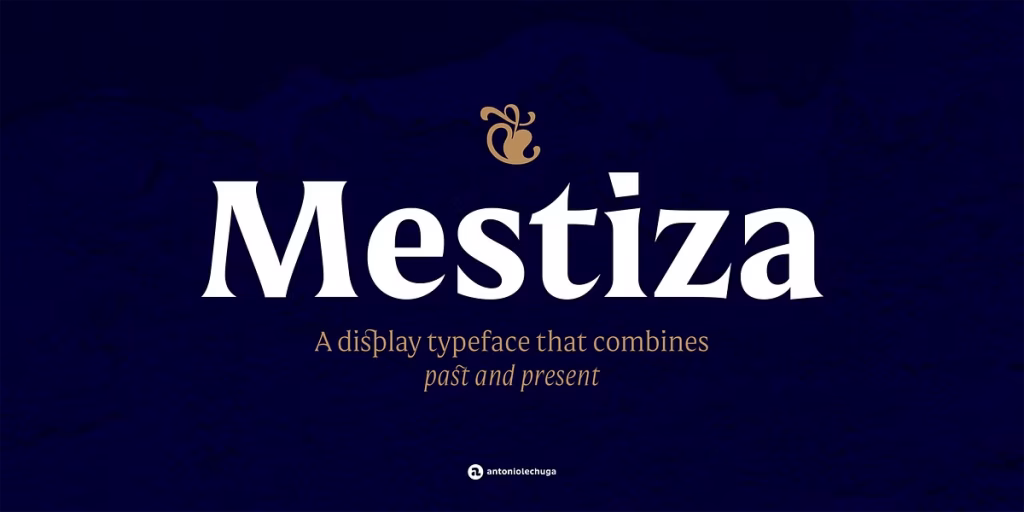
Mestiza is an innovative type family that blends its rich historical background and modern elements. Its unique blend bridges the gap between handmade and contemporary design, creating a sense of elegance and power.
The distinctive character of Mestiza is due to the striking endpoints and high contrast. This makes it perfectly suited for headlines and branding initiatives. Furthermore, Mestiza supports 219 Latin alphabet languages, courtesy of its over 700 character-set.
The Mestiza fonts family comprises 12 versions, including six Roman and Italics. Other variants include Small Caps, Old-style Numbers, Superiors, Inferiors, Contextual and Discretionary ligatures, Symbols, and several Alternates.
Mestiza font details
Foundry: Lechuga Type
Glyphs: Basic Latin, Diacritics, Currency, Central Europe, Alternates, Cyrillic, Figures
Styles: Extra Light, Light, Medium, Bold, Black, Compact, Italics